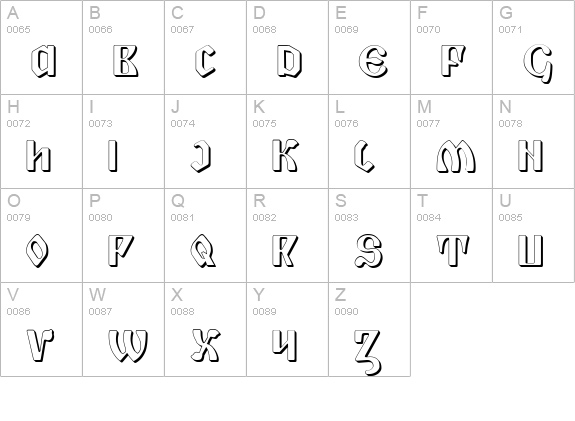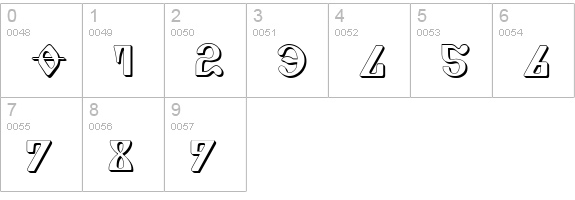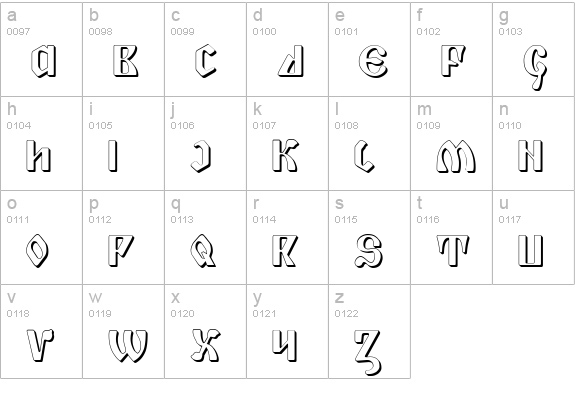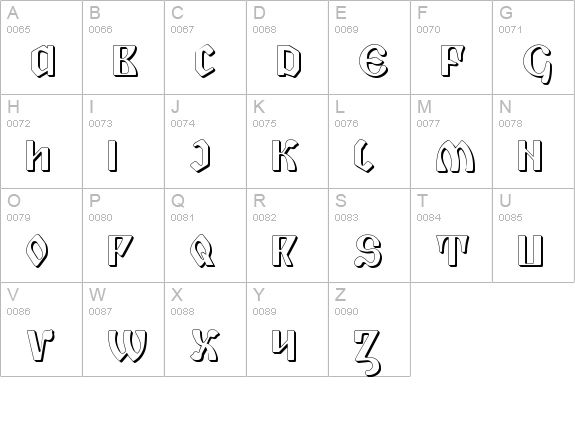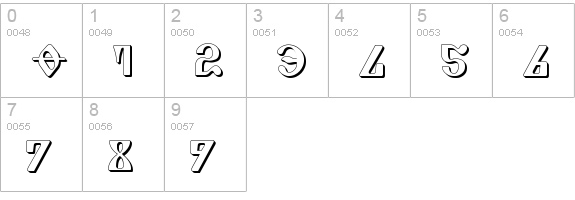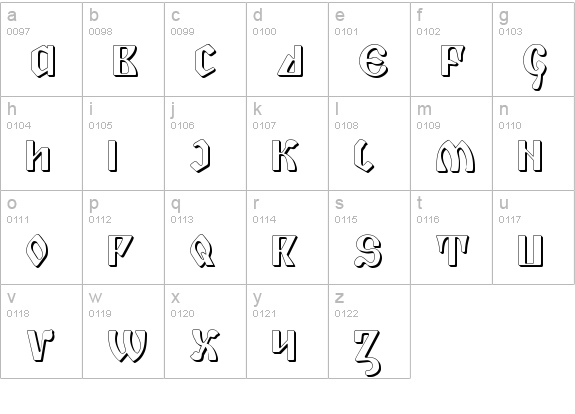
Introducing Piper Pie 3D font, a delightful and whimsical typeface that will add a touch of fun to your projects. This unique font features a playful 3D effect that will make your designs stand out. With its charming appearance and quirky style, Piper Pie 3D font is perfect for a variety of creative projects, from posters to invitations to branding. And the best part? Piper Pie 3D font is completely free! You can download this font at FontsMarket.com and start using it in your designs right away. Whether you're looking to add a touch of personality to your work or create eye-catching graphics, Piper Pie 3D font is sure to inspire your creativity. Don't miss out on this fantastic font - download it for free today and let your imagination soar!